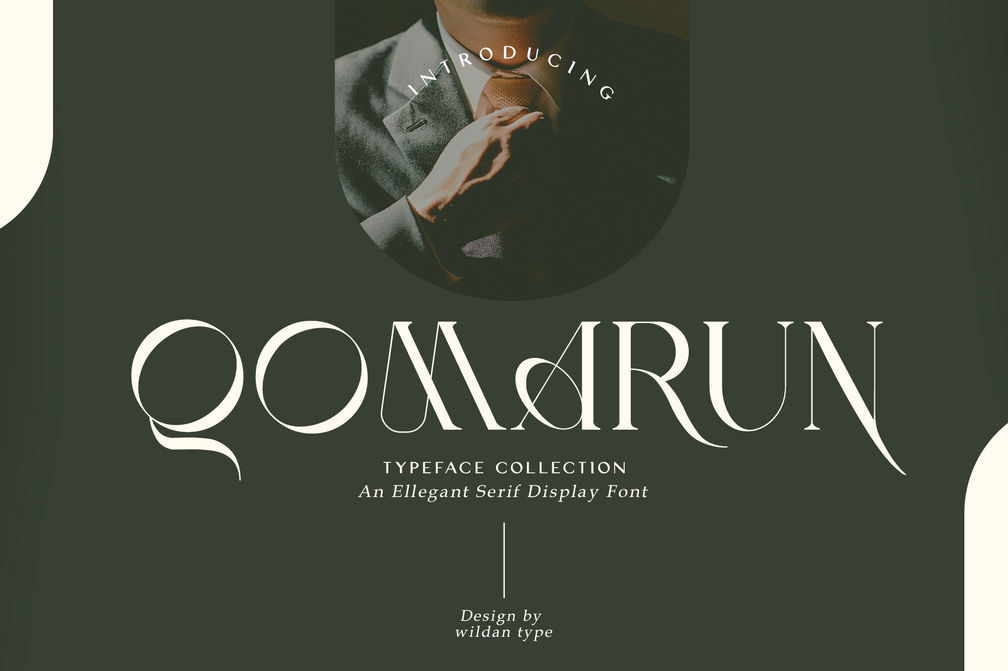
Qomarun
Qomarun is a modern, luxurious serif font with uniquely styled characters for a fashionable finish! Add it to product presentations, elegant logo designs, expensive packaging or invitations, and other projects alike!